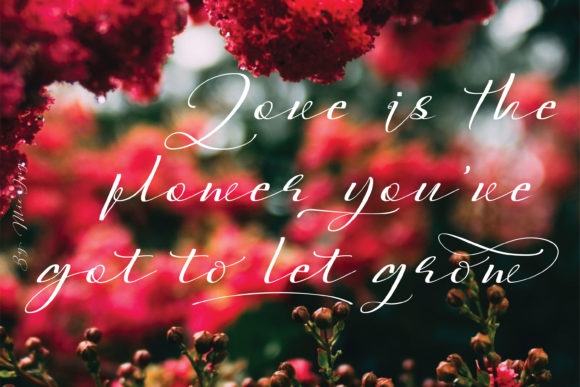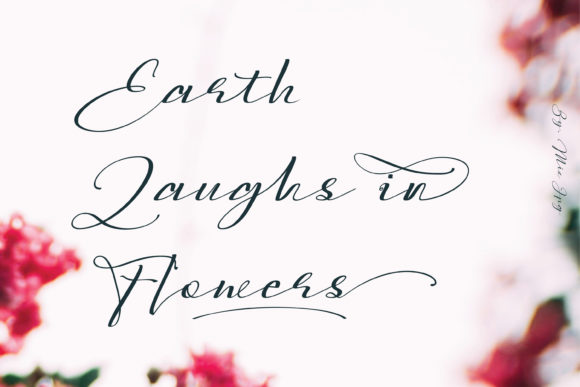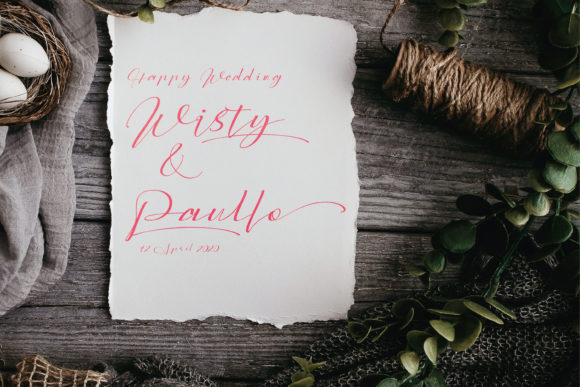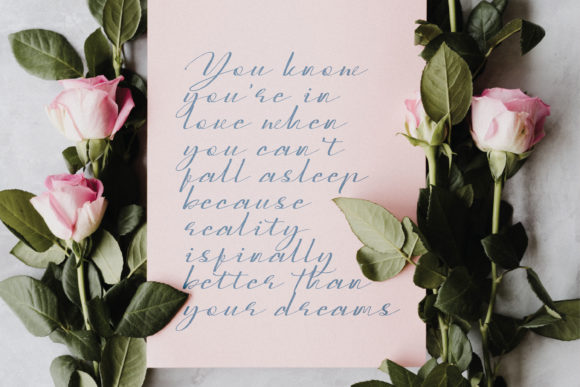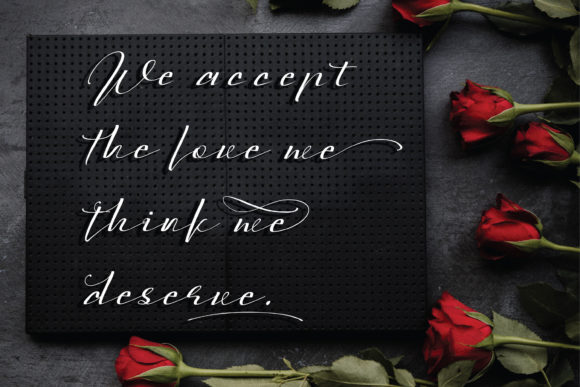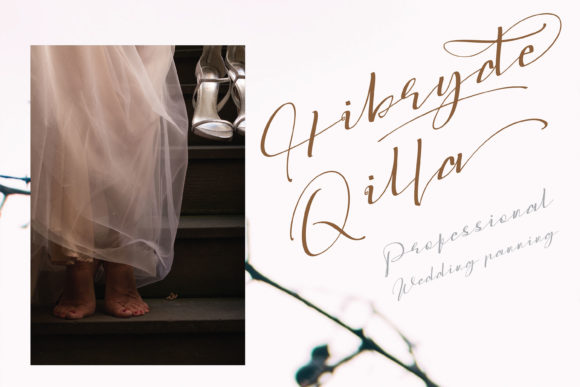
Introduction to Sarony Font
Have you ever been in the midst of a creative project, pouring your heart and soul into every detail, only to feel like something’s missing? Maybe it’s the perfect font to elevate your design from good to great. That’s where the Sarony Font comes in – a true gem that simplifies elegance into one outstanding handwritten font.
As a designer, you know how valuable a high-quality design resource can be. The Sarony Font is not just another font, but a game-changer that can take your creative projects to the next level. With its beautiful, handwritten style, it’s perfect for branding, headings, wedding designs, invitations, signatures, logos, labels, and much more. Plus, it’s easy to download and use, making it a great addition to your design arsenal.
Sarony Font
- High-quality font suitable for creative projects and design resources.
- Designed with a unique, elegant style that can add a touch of sophistication to any design.
Honest Review: Sarony Font
I recently stumbled upon the Sarony Font and was excited to give it a try for my latest creative project. The first thing I noticed was the high quality of the font, which is perfect for any design resource.
- ✨ High-quality design that looks great on any background
However, I did notice a few limitations. ⚠️ The font is only available in a limited number of styles and weights, which may not be ideal for designers who need more flexibility.
The Sarony Font is a high-quality design resource ideal for creative projects that require a unique and elegant touch. With its transparent background, this font is perfect for overlaying on images or using as a standalone element in your design.
Tips for Getting the Most Out of Sarony Font
To get the most out of the Sarony Font, consider the following tips:
- Use the font in conjunction with a high-quality image or background to create a visually appealing design.
- Experiment with different font sizes and styles to create a unique and eye-catching effect.
- Use the font as a standalone element or overlay it on an image to create a sense of depth and dimension.
The Sarony Font is ideal for a variety of creative projects, including:
- Business cards and branding materials
- Graphic design projects and infographics
- Photography and image overlay projects
The Sarony Font